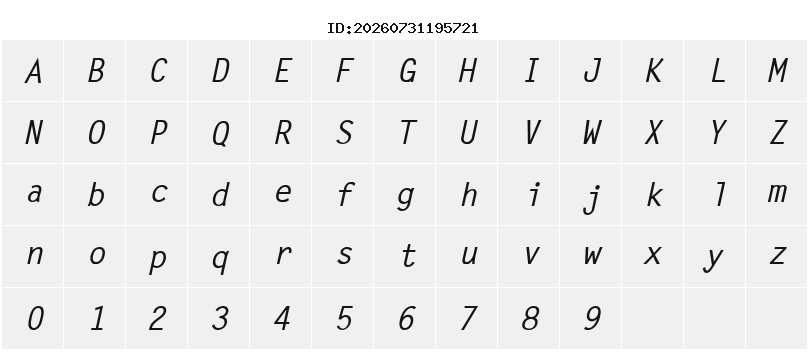
Lechter Preview
• Font Name: Lechter
• Font ID: FontMonger:Lechter Bold Italic
• Full Font Name: Lechter Bold Italic
• Version: 1.0 Tue Jul 27 10:19:26 1993
• PostScript Name: LechterBoldItalic
• Character Count: 271
About Lechter.ttf
Lechter.ttf is a modern, elegant sans-serif font designed for ultimate readability and visual harmony. Perfect for branding, headlines, web design, and print materials.